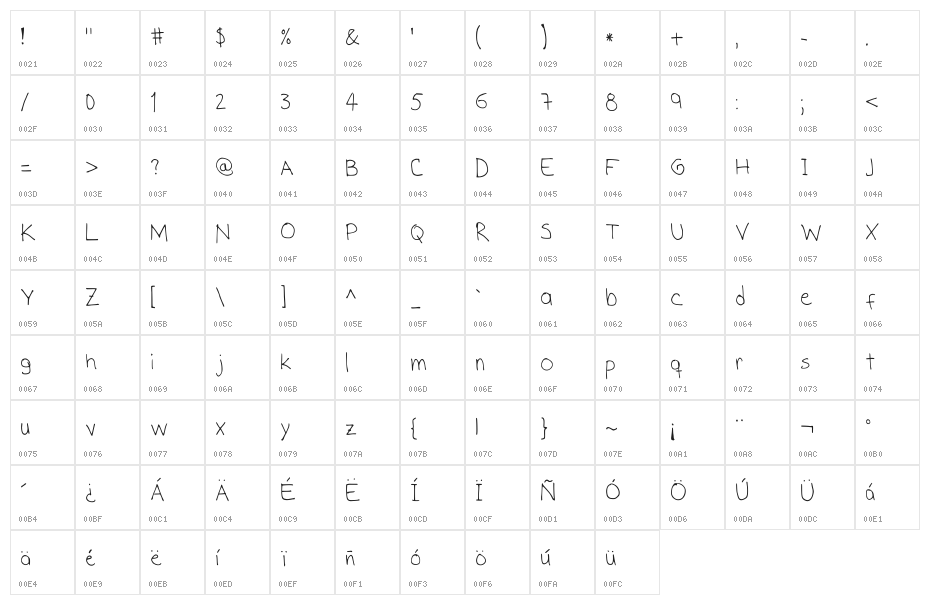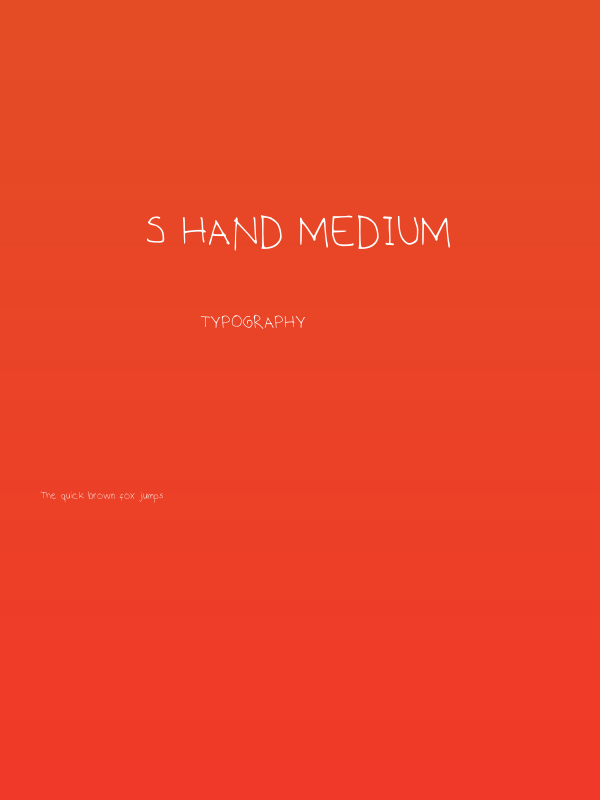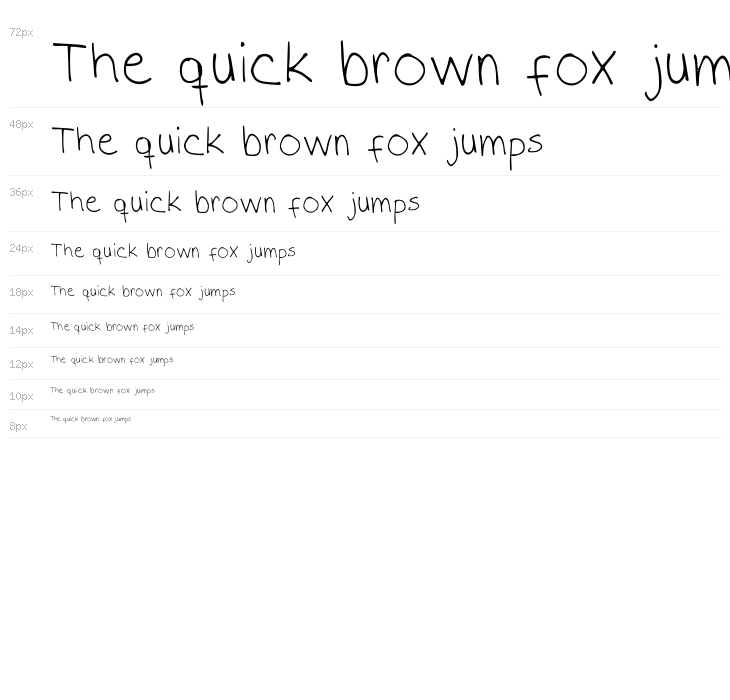
S Hand Medium Font
S Hand Medium Description
This font exhibits a playful and casual handwritten style, characterized by its irregular strokes and informal appearance. The letters are slightly uneven, giving it a natural and organic feel, reminiscent of a personal note or a casual sketch. The uppercase and lowercase letters maintain a consistent style, with rounded edges and a slight tilt, adding to its approachable and friendly demeanor. The numerals and special characters follow the same design principles, ensuring uniformity across all glyphs. This font is perfect for projects that require a personal touch or a relaxed vibe, such as greeting cards, invitations, or informal branding.
| Use Case | Headlines, Informal text, Personal notes |
| Proposed Projects | Ideal for greeting cards, invitations, personal notes, and informal branding. |